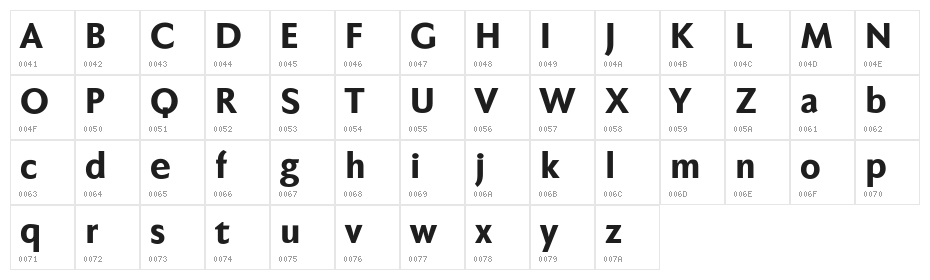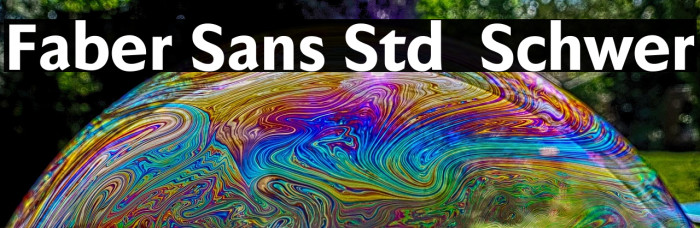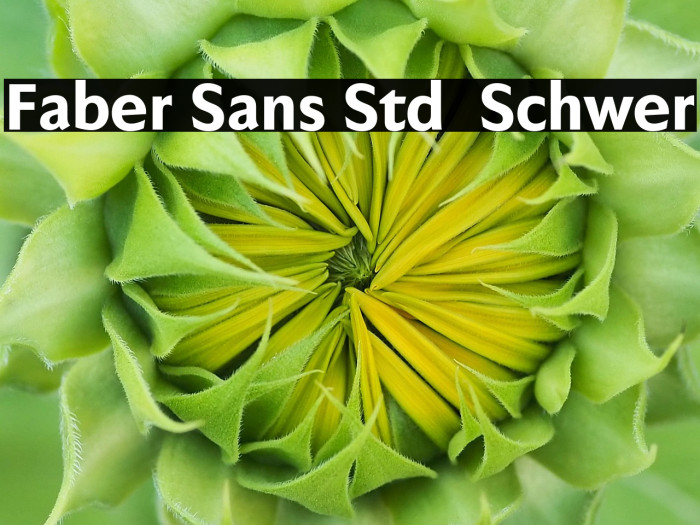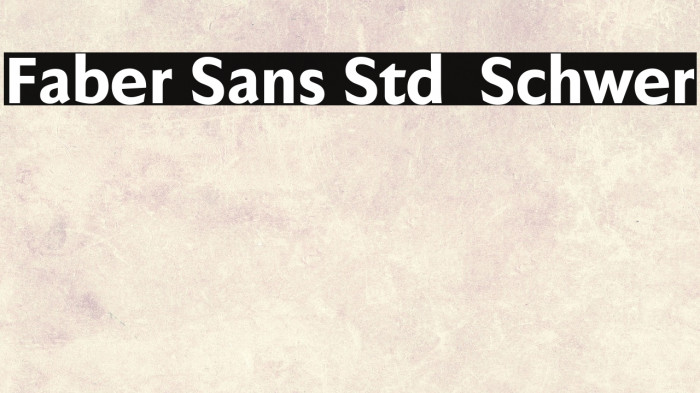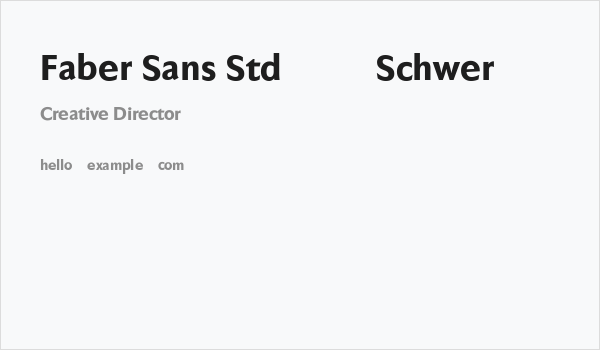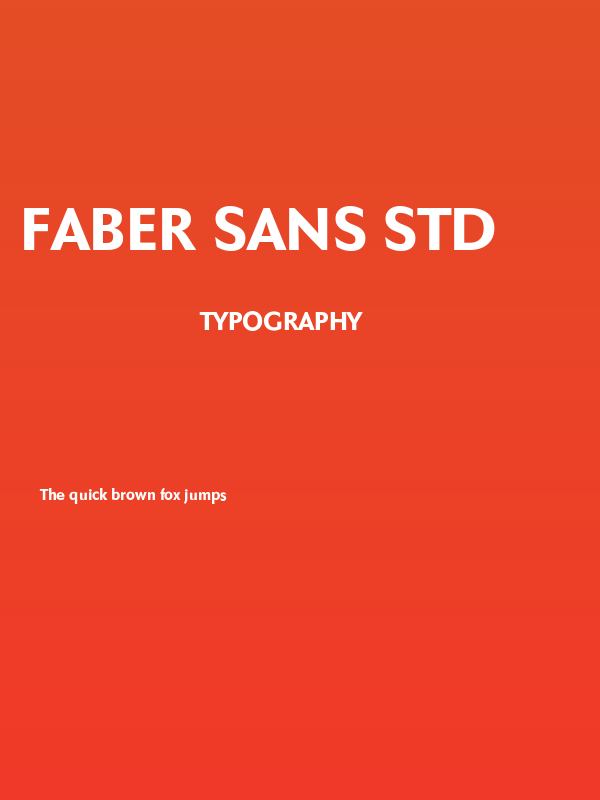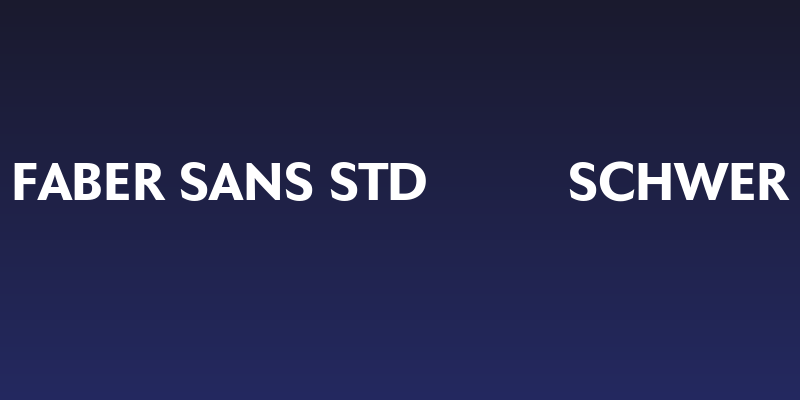
Faber Sans Std 85 Schwer Font
Faber Sans Std 85 Schwer Description
This font features a bold and robust sans-serif style, characterized by clean lines and a modern aesthetic. The uppercase and lowercase letters are well-proportioned, providing excellent readability. The design is straightforward yet impactful, making it suitable for various applications. The uniform stroke width and lack of serifs contribute to its contemporary look, while the slightly rounded edges add a touch of softness. This font is versatile, easily adaptable to both digital and print media, and can effectively convey a sense of professionalism and clarity.